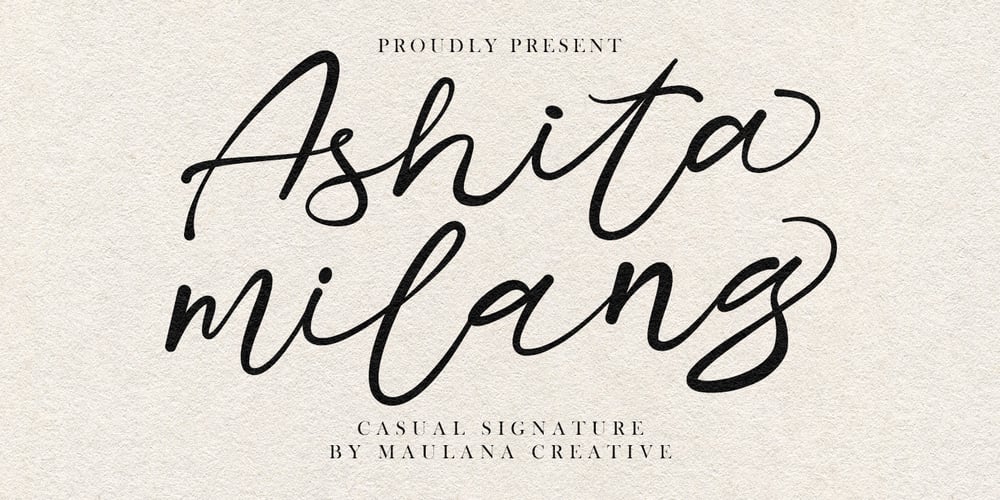
MC Ashitamilang
MC Ashitamilang font
MC Ashitamilang Font Family was designed by Gilang Maulana and published by Maulana Creative. MC Ashitamilang contains 1 styles and family package options. Ashitamilang Casual Signature Font, fun character with a bit of ligatures and alternates. To give you an extra creative work. Ashitamilang Casual Signature Font support multilingual more than 100+ language.Cheers,Maulana Creative